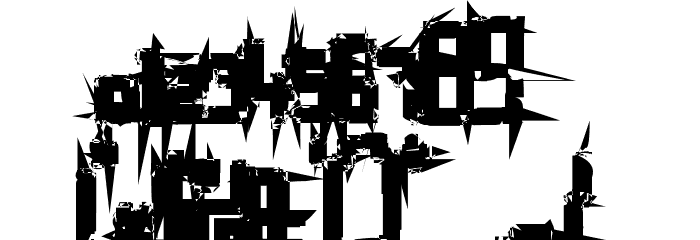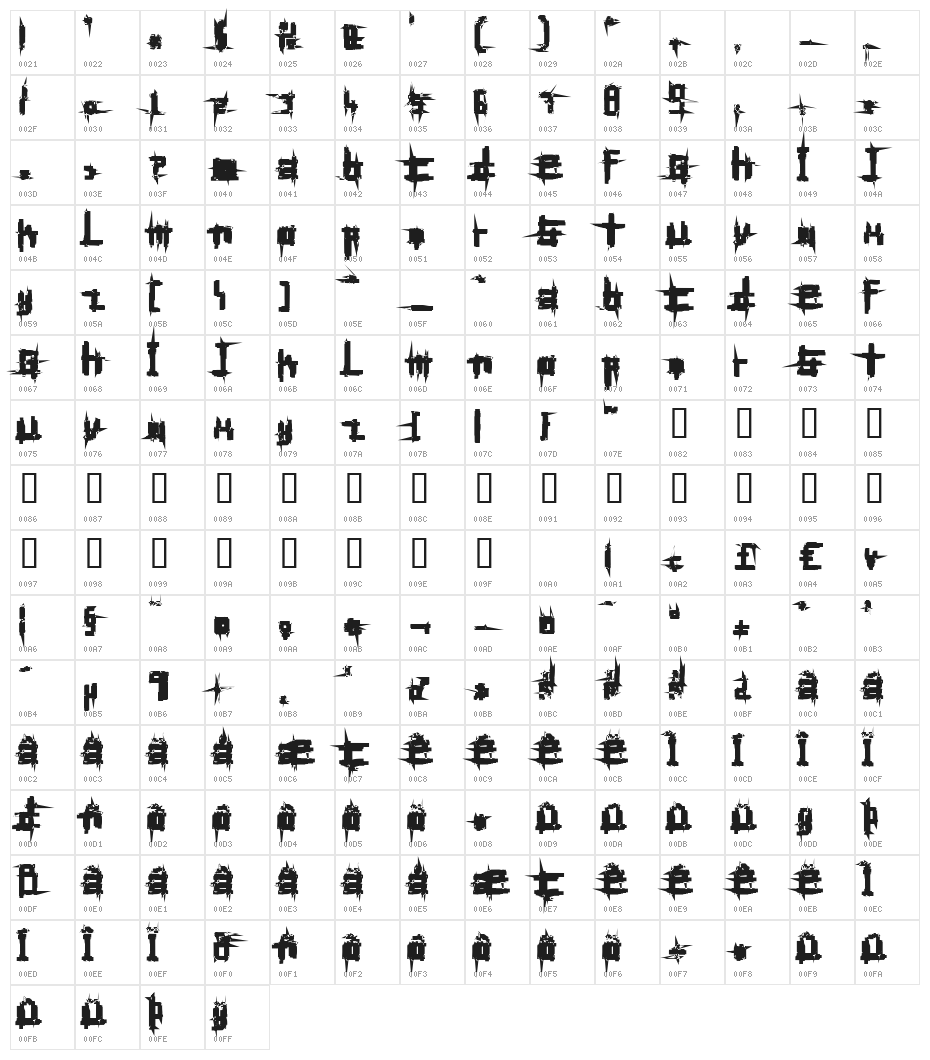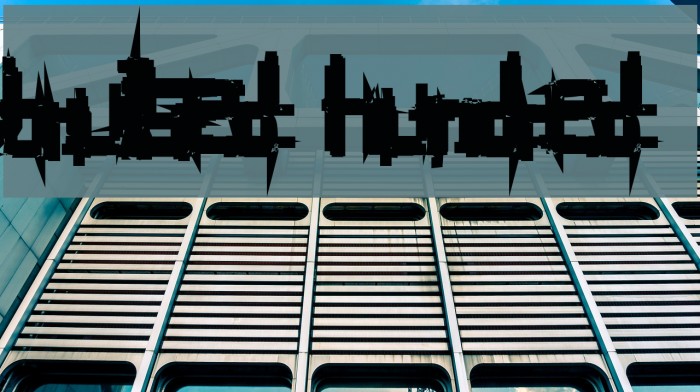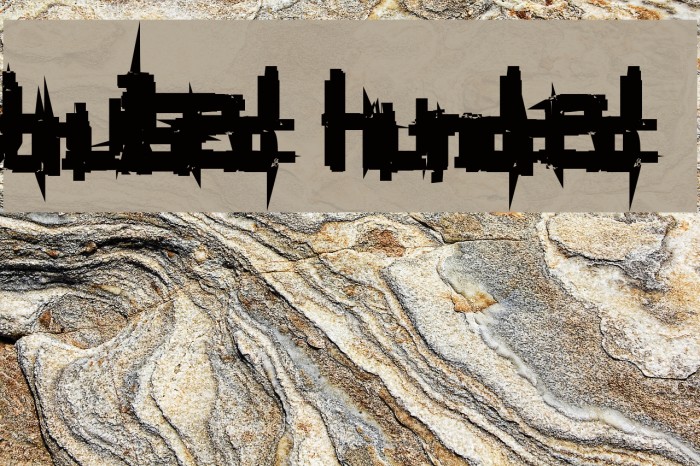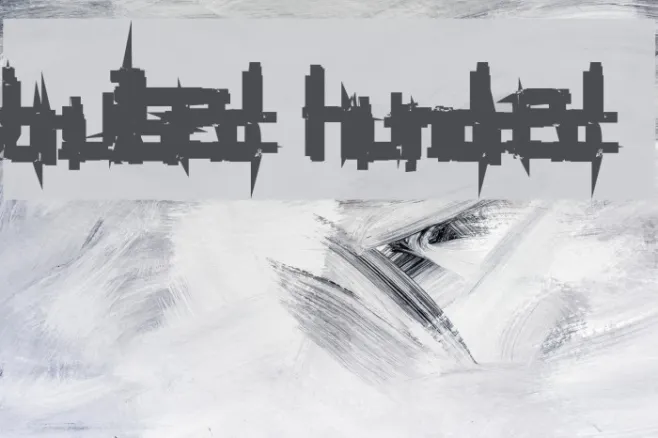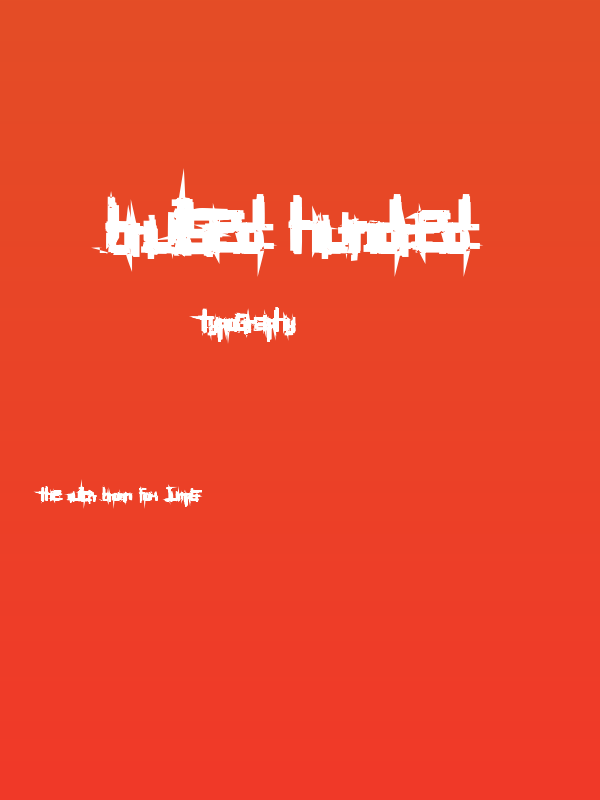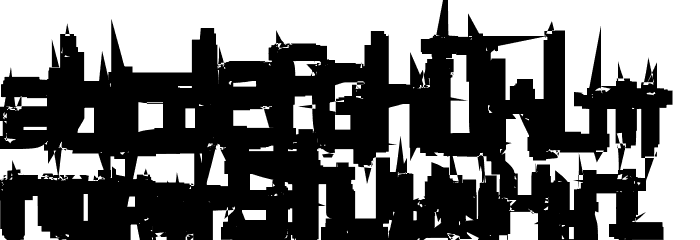
Bruised Hundred Font
Bruised Hundred Description
This font features a highly distressed and chaotic appearance, characterized by jagged edges and irregular shapes that give it a raw, edgy feel. The letters are bold and heavily stylized, with sharp, angular protrusions that create a sense of movement and aggression. The overall design is reminiscent of urban graffiti or a post-apocalyptic aesthetic, making it stand out with its unique and unconventional style. The characters are densely packed, adding to the intensity and visual impact of the font. This design is not suited for readability in large blocks of text but excels in capturing attention and conveying a strong, rebellious message.
| Overall Style | Edgy, Urban, Distressed |
| Proposed Projects | Ideal for music album covers, streetwear branding, poster designs, and any project seeking a gritty, rebellious aesthetic. |